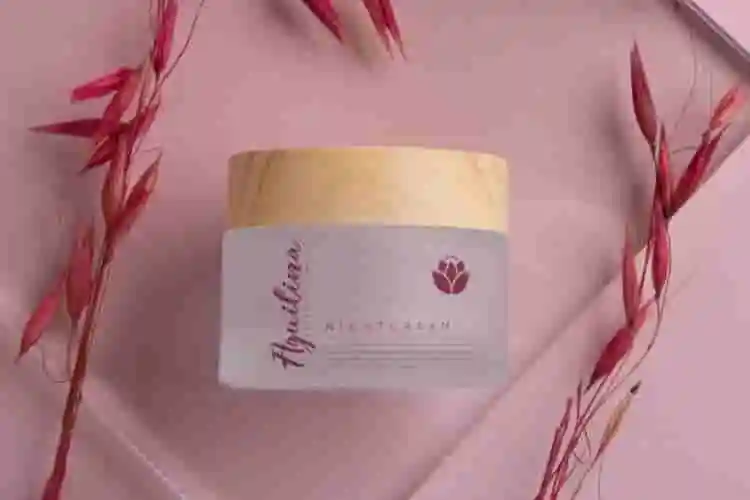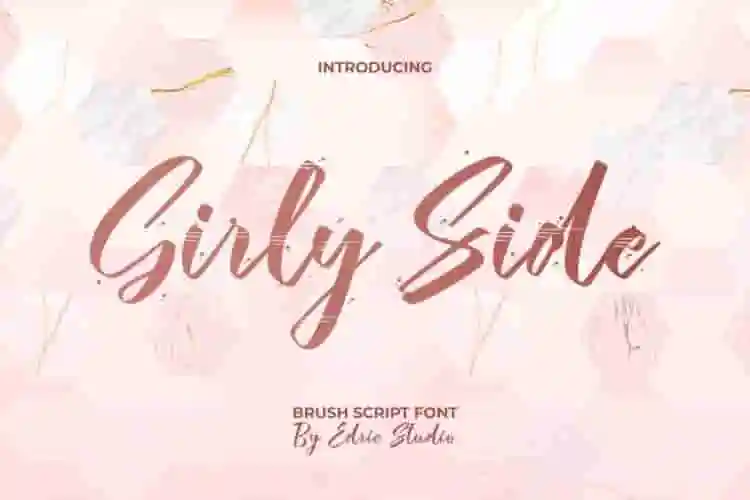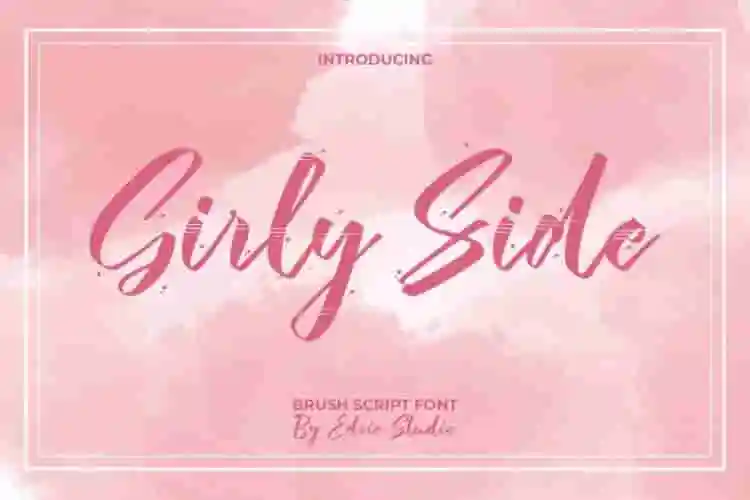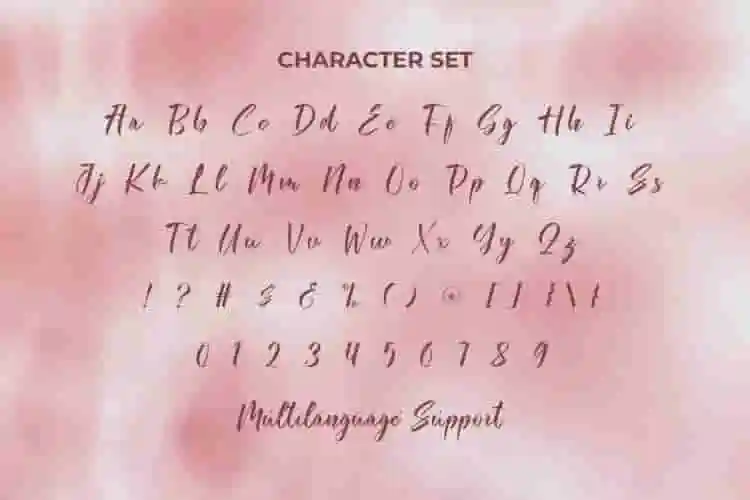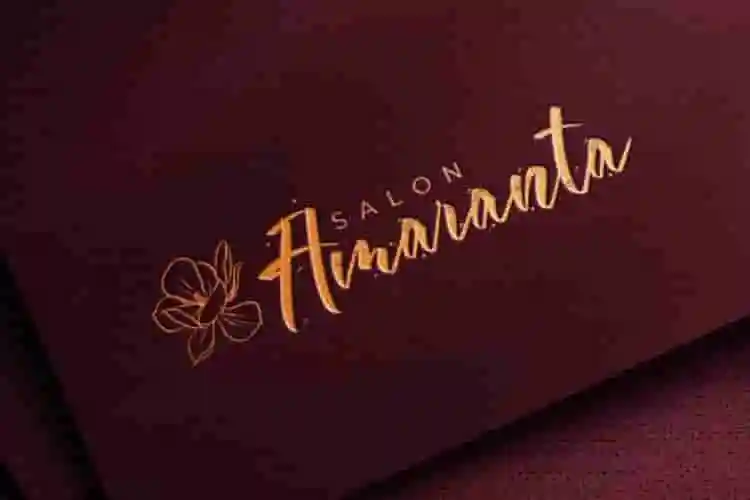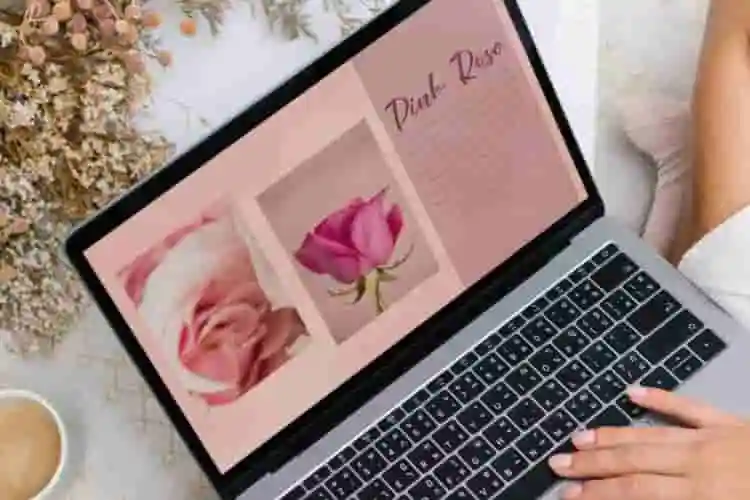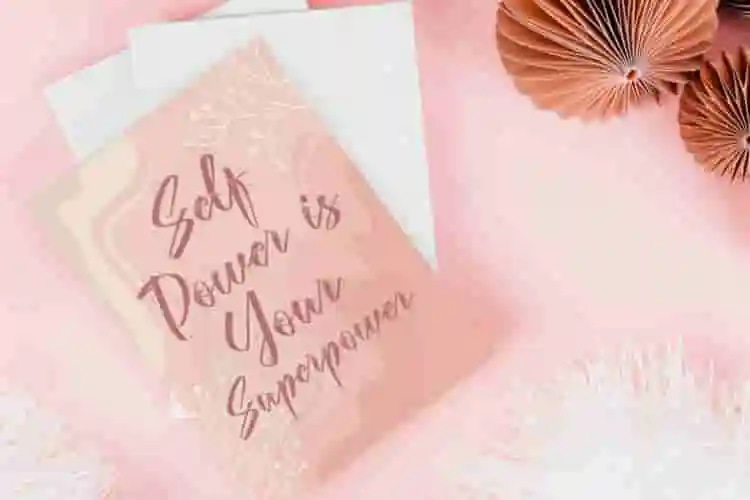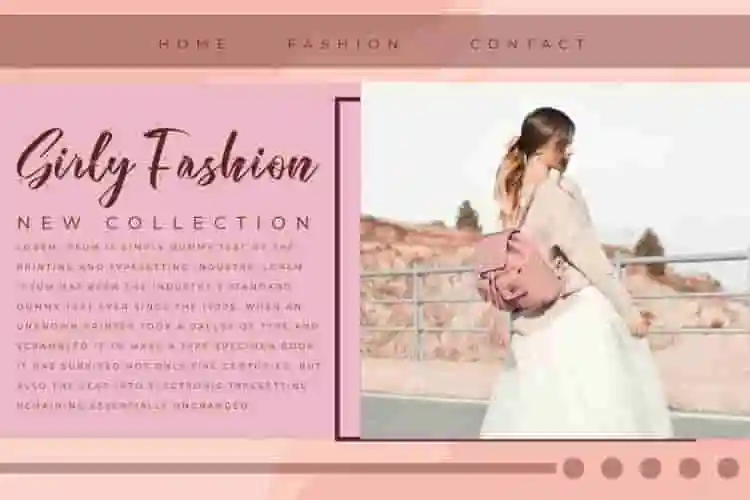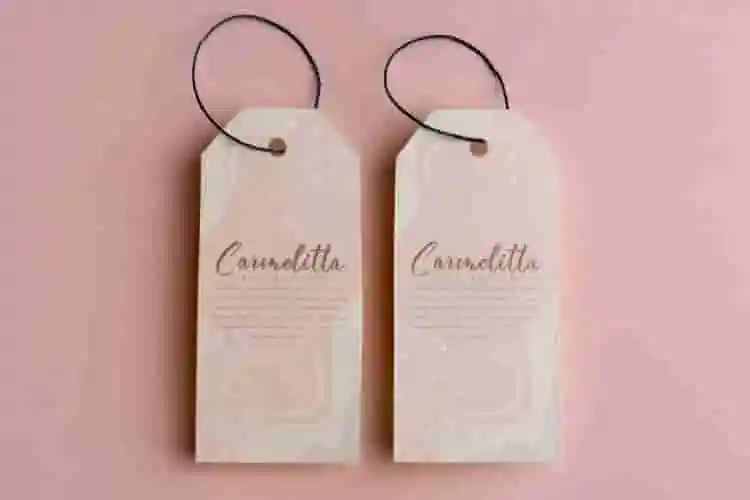
Girly Side Font is a classy brush script font. This typography has been crafted with great care to create impeccable lettering. The aesthetics of this font are in the effects and brushes surrounding each character making it suitable for many industries, such as advertisement, architect, boutique, cosmetic, event organizer, fashion designer, florist, handicraft, printing, publishing, real estate, restaurant, skincare, spa salon, and many more.
Girly Side Font comes with a full set of Uppercase and Lowercase Basic Characters, Number, a large range of Punctuation and Symbol. It has a stunning characters set, perfectly managed with well spaced and kerning. Girly Side Font will be great for any projects (with extended license) including: app, brand logo, brochure, business card, greeting cards, invitation, label, menu, packaging design, quote, screen print, signage, sticker, title, website, etc.
Say hello to Girly Side, a fun and energetic brush font that brings a perfect blend of confidence, charm, and creativity to your designs. With hand-drawn strokes and just the right amount of edge.
Unleash your playful power with Girly Side, a stylish brush font that blends modern flair with fearless femininity. With its smooth, hand-painted strokes and bold personality, this font is made for creators who love standing out.
- Modern Brush Script
- Feminine, But Not Fragile
Girly Side Font also has Ligature characters options that you can choose and use to make it perfectly bonded and stand out. Ready to use both on Windows machine or Mac with simple installations with multilingual characters supported. It’s tested to work well in the Adobe Apps (Illustrator, Adobe InDesign, Adobe Photoshop) even work on Microsoft Word. PUA Encode Characters means you can access all characters easily – Fully accessible without additional design software.